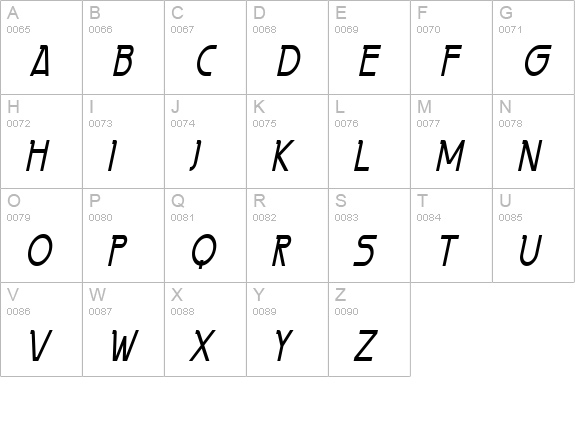
Persia Thin Bold Italic Font Details
Persia Thin Bold Italic is a delicate, low-contrast, italic variant in the Persia typeface family \xE2\x80\x94 well suited to fashion editorial, minimal branding, and high-contrast display.
Introducing Persia Thin Bold Italic font, a captivating and versatile typeface that effortlessly combines elegance with a touch of modernity. Designed to make a statement, this font is perfect for adding a bold and sophisticated touch to any project. With its sleek and slender letterforms, Persia Thin Bold Italic exudes a sense of refined minimalism. The italicized slant adds a dynamic twist, infusing each character with a sense of movement and energy. Whether used for headings, logos, or body text, this font commands attention and leaves a lasting impression. One of the most exceptional features of Persia Thin Bold Italic font is that it is freely available to download at FontsMarket.com. This means that you can easily access and utilize this stunning typeface without any cost. Whether you are a professional designer or a casual enthusiast, this font opens up a world of creative possibilities without any restrictions. The clean and sharp lines of Persia Thin Bold Italic font ensure excellent legibility even at small sizes, making it ideal for both print and digital mediums. Its versatility shines through in various design applications, from posters and brochures to websites and social media graphics. Persia Thin Bold Italic font effortlessly captures attention, elevating your designs to new heights of sophistication. Its stylish and contemporary aesthetic will impress both clients and audiences alike. So why wait? Download Persia Thin Bold Italic font today from FontsMarket.com and unlock a world of creative possibilities, all for free.